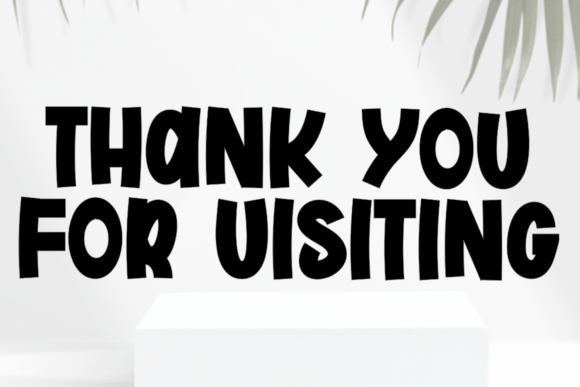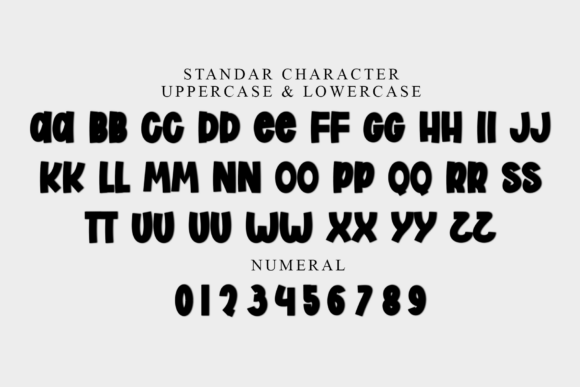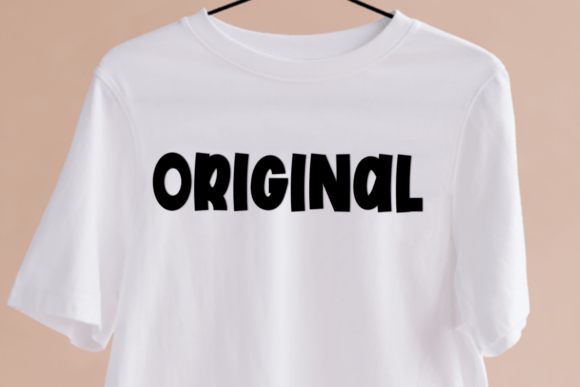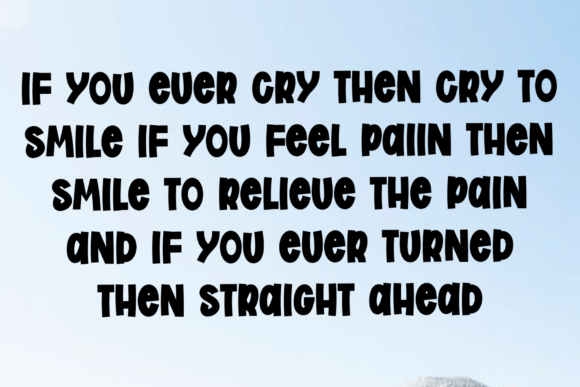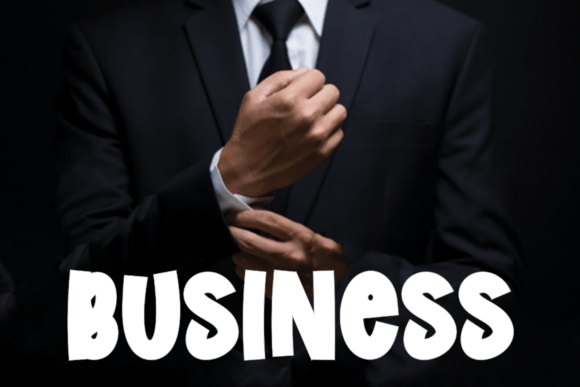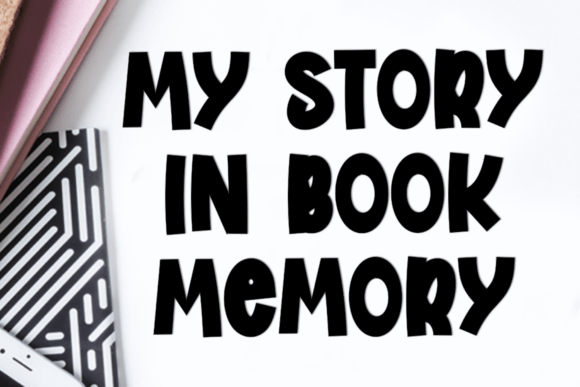
Celebrating the Magic of the Season with Cactus Green Font
It’s that time of the year when creativity flows like hot cocoa on a chilly winter evening. You’re rummaging through your font collection, searching for the perfect typography to capture the essence of the holiday season. And then, you stumble upon it – a font that’s as merry as a snowman’s grin, as festive as a Christmas tree’s twinkling lights. Welcome to the world of Cactus Green Font, a typeface that embodies the spirit of joy and cheer.
This enchanting font is more than just a pretty face; it’s a treasure trove of creative possibilities. With its whimsical flair and decorative elements, Cactus Green Font adds a touch of magic to your designs, making it perfect for greeting cards, gift tags, and holiday-themed projects. Whether you’re a seasoned designer or a crafty enthusiast, this font is sure to bring a smile to your face and a twinkle to your typography.
Cactus Green Font Key Features
- Unique Characteristics: Cactus Green Font features a unique blend of modern and vintage elements, with a distinctive cactus-inspired design that adds a touch of whimsy to any text.
Cactus Green Font Review
Overall, I have mixed feelings about the Cactus Green Font. On one hand, it’s a great option for designers looking for a fun and playful font to add some personality to their projects. ✨ The font’s unique design and quirky feel make it perfect for creative and artistic endeavors.
Here are some of the things that work well with Cactus Green Font:
- ✨ Unique design that sets it apart from more traditional fonts
- ✨ Perfect for creative and artistic projects, such as branding and advertising
- ✨ Works well for digital projects, such as web design and mobile apps
- ⚠️ May not be suitable for formal or professional projects, as it can come across as unprofessional
- ⚠️ May be difficult to read at small font sizes, due to its unique design
Overall, I would recommend the Cactus Green Font for designers who are looking for a fun and playful option to add some personality to their projects. However, it’s not suitable for every project, and designers should carefully consider its limitations before making a decision.
Tips for Getting the Most Out of Cactus Green Font
To get the most out of the Cactus Green Font, try using it in combination with other bold, playful fonts to create a unique and eye-catching design. Experiment with different font sizes and styles to create visual interest and hierarchy. Use the Cactus Green Font to add a touch of whimsy and fun to your designs.
The Cactus Green Font is ideal for use in creative, fun, and playful designs, such as:
– Social media graphics and ads
– Children’s educational materials
– Event invitations and promotional materials